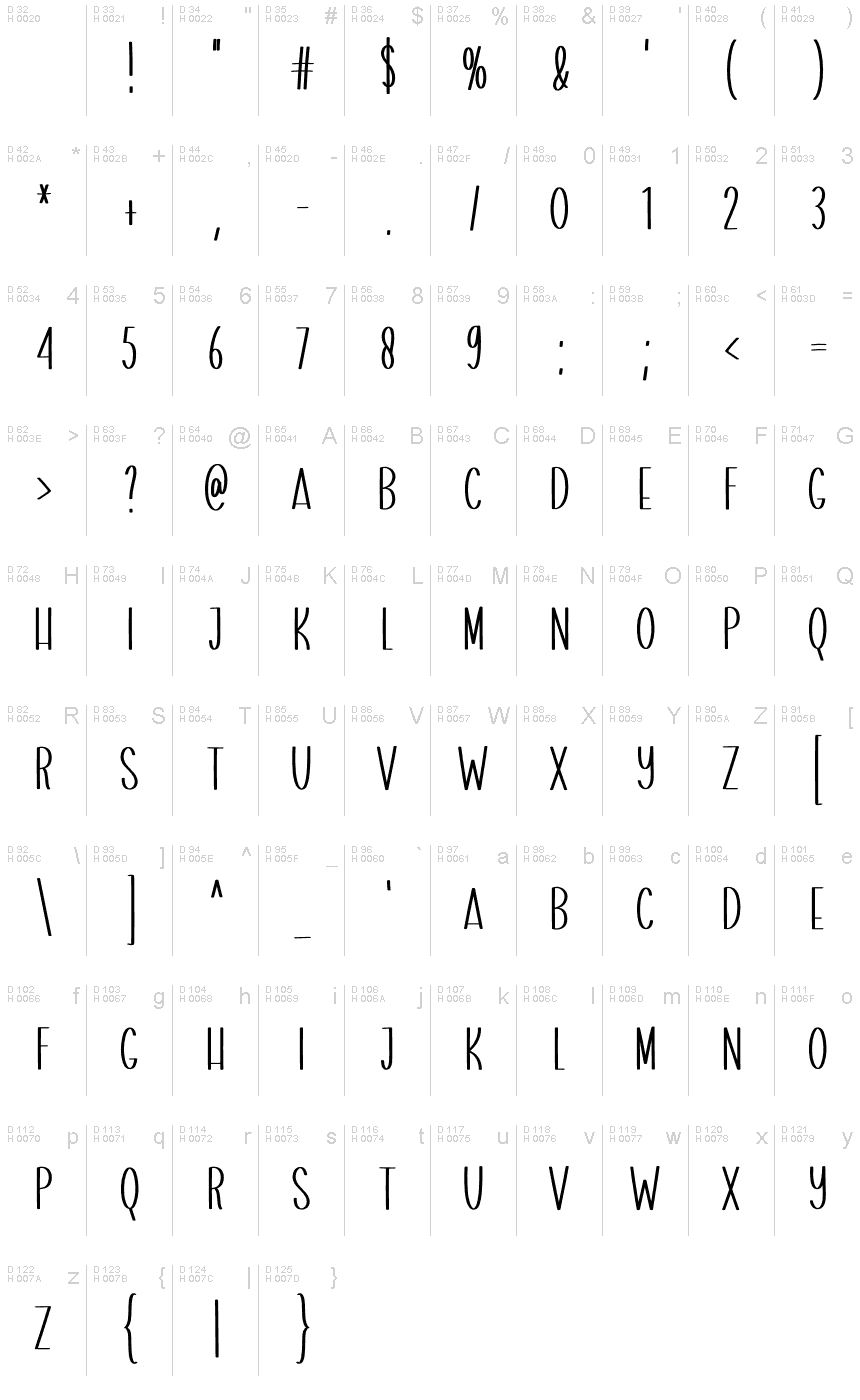
Family House
Family House, a whimsical creation by Scratchones, brings a playful handwritten touch to your projects. Its semi-light weight and extra-condensed width give it a unique charm, perfect for fun and lighthearted designs.
With its all caps and block letter style, this font is ideal for children's book covers, comic strips, party invitations, and quirky branding.
Let Family House bring a dash of creativity and joy to your next project!